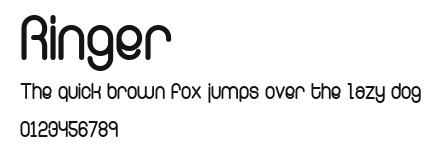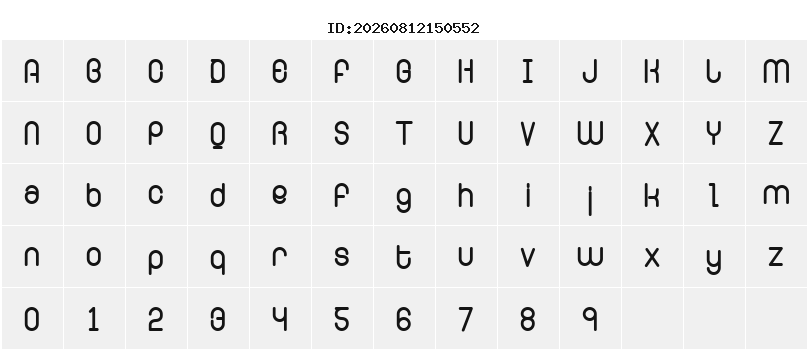
• Font Name: Ringer
• Full Font Name: Ringer ExtraBold
• Designer: Måns Grebäck
• Manufacturer: Måns Grebäck
About Ringer.ttf
Ringer.ttf is a modern, elegant sans-serif font designed for ultimate readability and visual harmony. Perfect for branding, headlines, web design, and print materials.